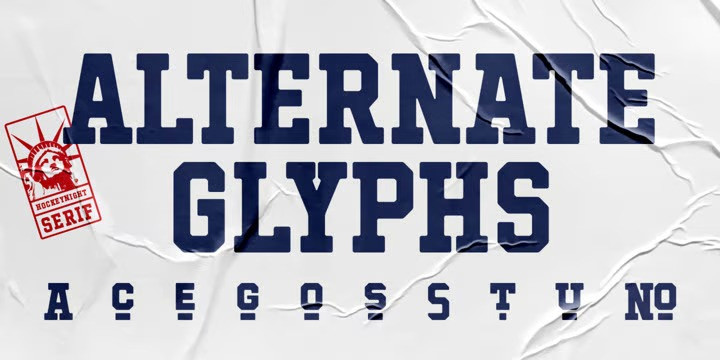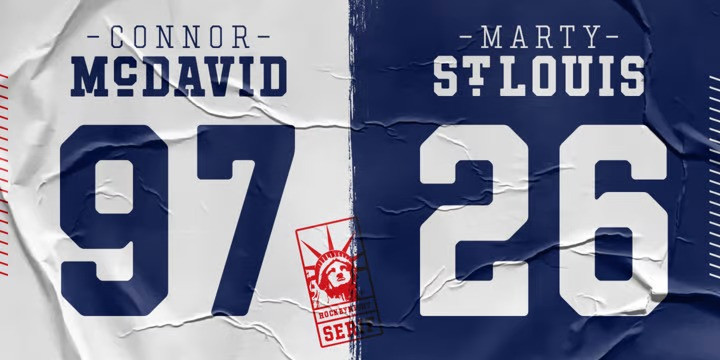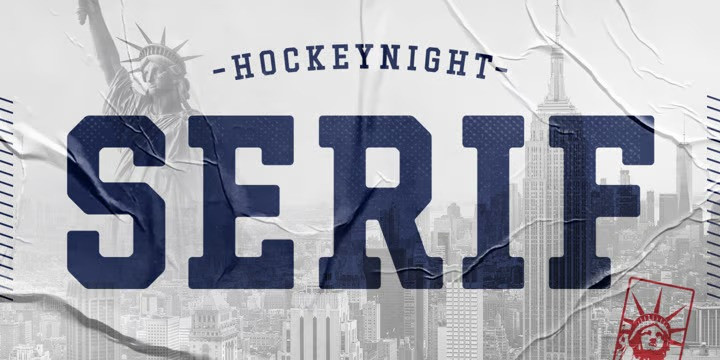
Hockeynight Serif Font Family
Hockeynight slab serif inspired by sporty design, vintage style with a touch of classic style. Hockeynight comes in 7 weights and each one is available in italics. Spice up your designs and mix in some alternate glyphs! Go big and bold on your sports-poster or space it up for that dirty style! Check out the alternate glyphs if you are looking for ideas for your logodesign!